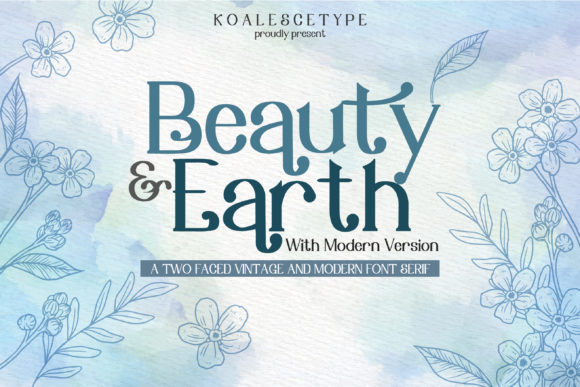
Introducing Beauty Earth Font, a captivating serif typeface that embodies elegance and sophistication. This exquisite font family, lovingly crafted by Koalescetype, is a treasure trove of Old Style fonts that will transform your creative endeavors into masterpieces.
Beauty Earth Font is not just a font; it's an artistic expression that dances across your screen, leaving an imprint of timeless beauty in its wake. Its meticulously designed characters exude an alluring charm, inviting you to explore the realm of captivating typography.
Whether you're a seasoned designer or just starting your typographic journey, Beauty Earth Font is your trusty companion, ready to elevate your projects to new heights. Its versatility knows no bounds, effortlessly adapting to any design concept, from classic and timeless to contemporary and cutting-edge.
This remarkable font family is not merely a tool; it's an extension of your creativity, unlocking a world of possibilities. With Beauty Earth Font, your words will dance with newfound grace, captivating your audience with their magnetic allure.
So, why settle for ordinary fonts when you can immerse yourself in the extraordinary? Embrace Beauty Earth Font today and witness the transformative power it brings to your designs. Let its beauty captivate your imagination and let your creativity soar to unprecedented heights.